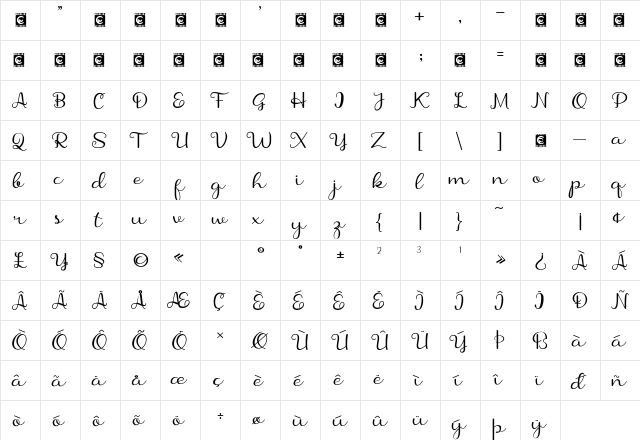
Shanela Regular
| Foundry | Putracetol Studio, Karanganyar. |
| Designer | Putra Novembria Candra Kusuma |
Design Context for Shanela Typeface
Shanela is a composed and adaptable typeface that performs quietly and consistently across a wide range of design contexts.